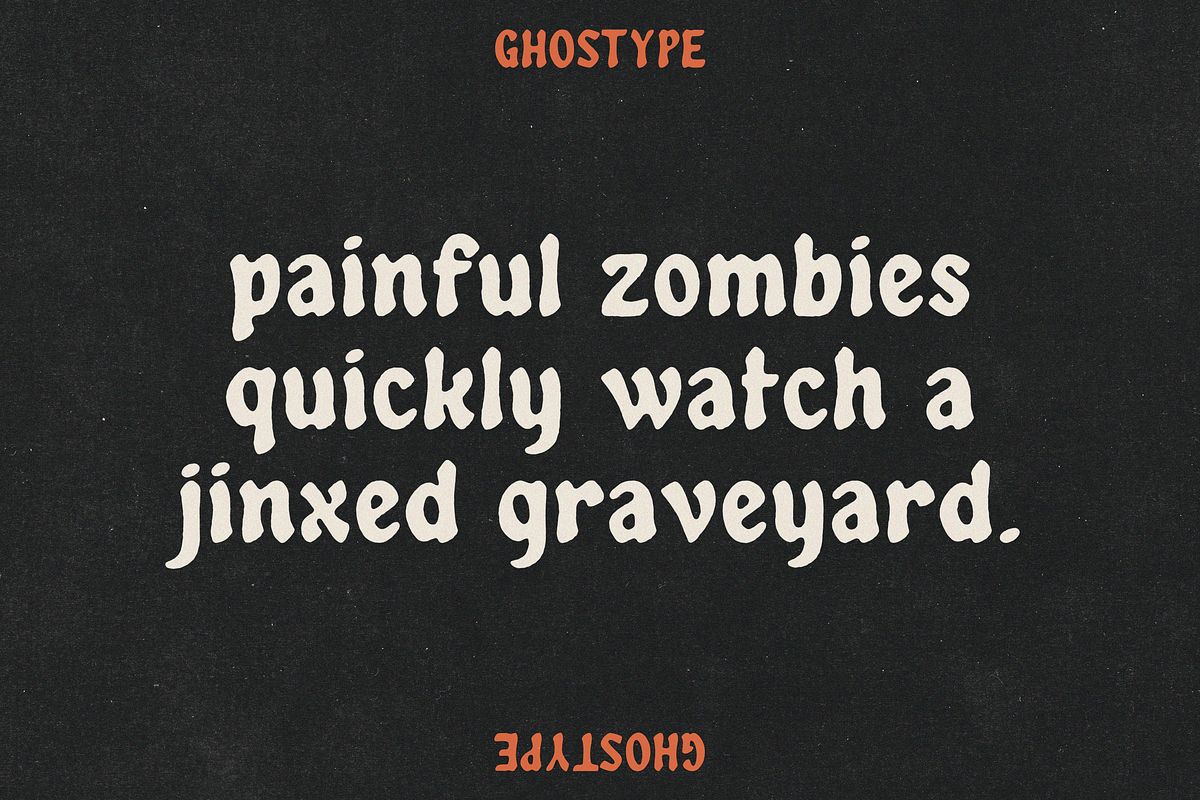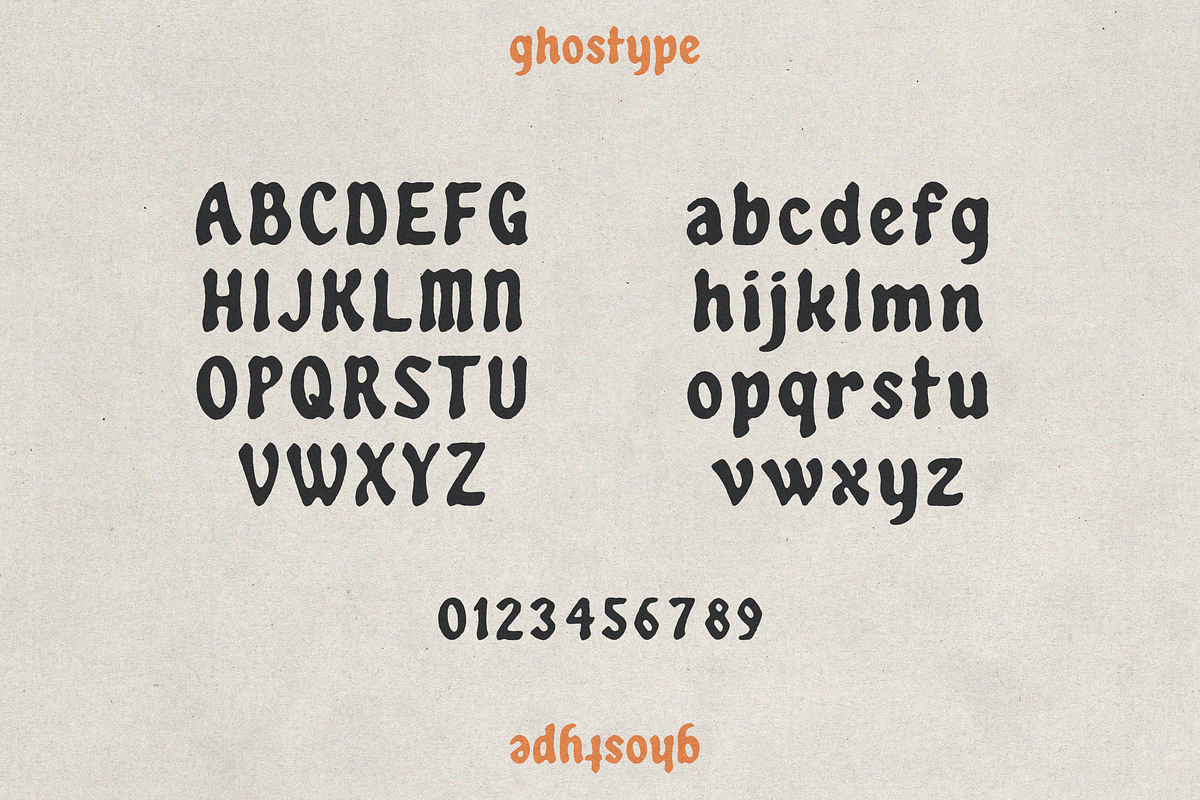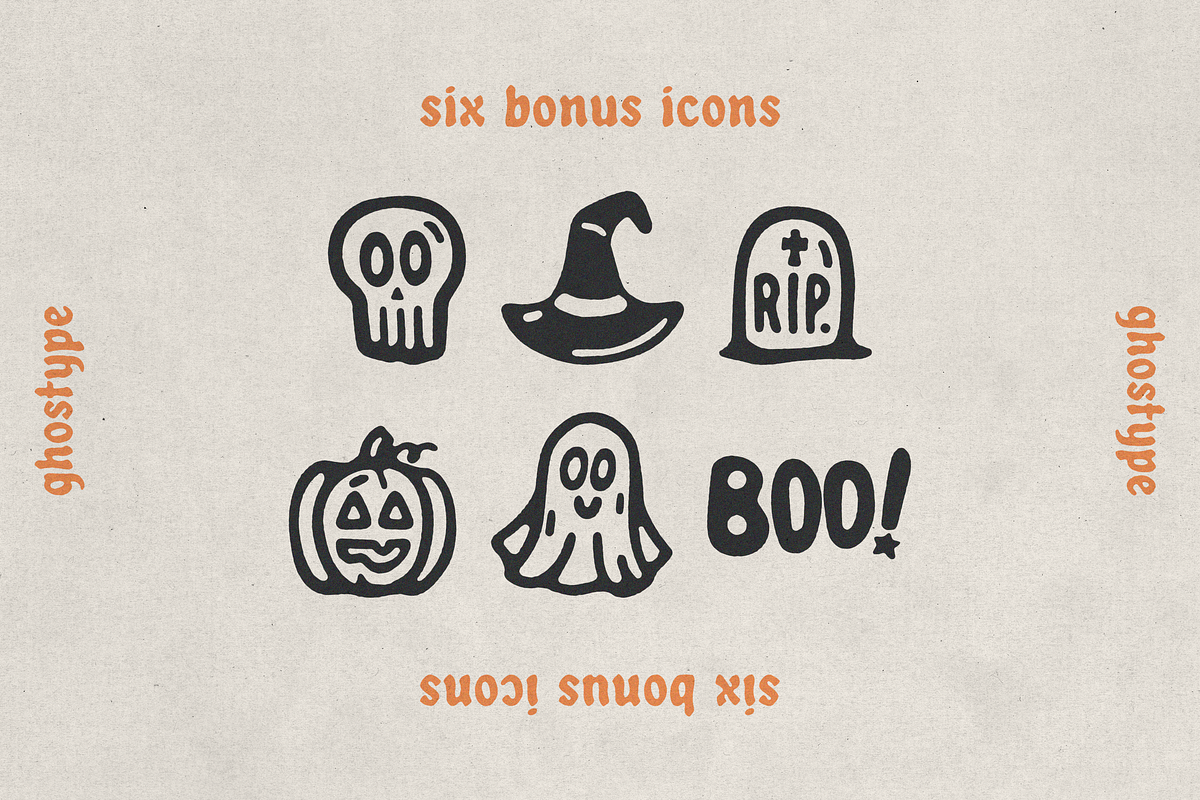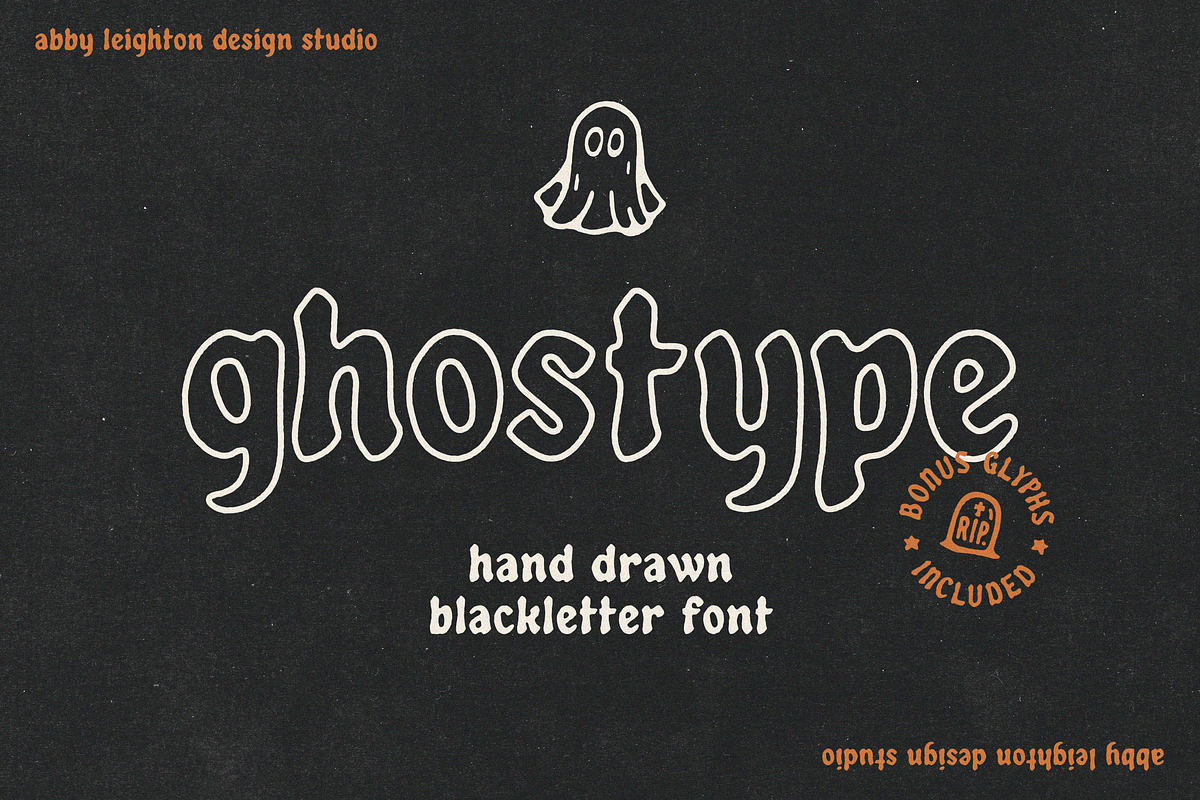
GHOSTYPE by Abby Leighton
GHOSTYPE is a hand lettered blackletter typeface. it's soft around the edges, which gives it a slightly more playful and organic feel as opposed to most blackletter fonts. It's perfect for that hand drawn, spooky touch for your halloween project.